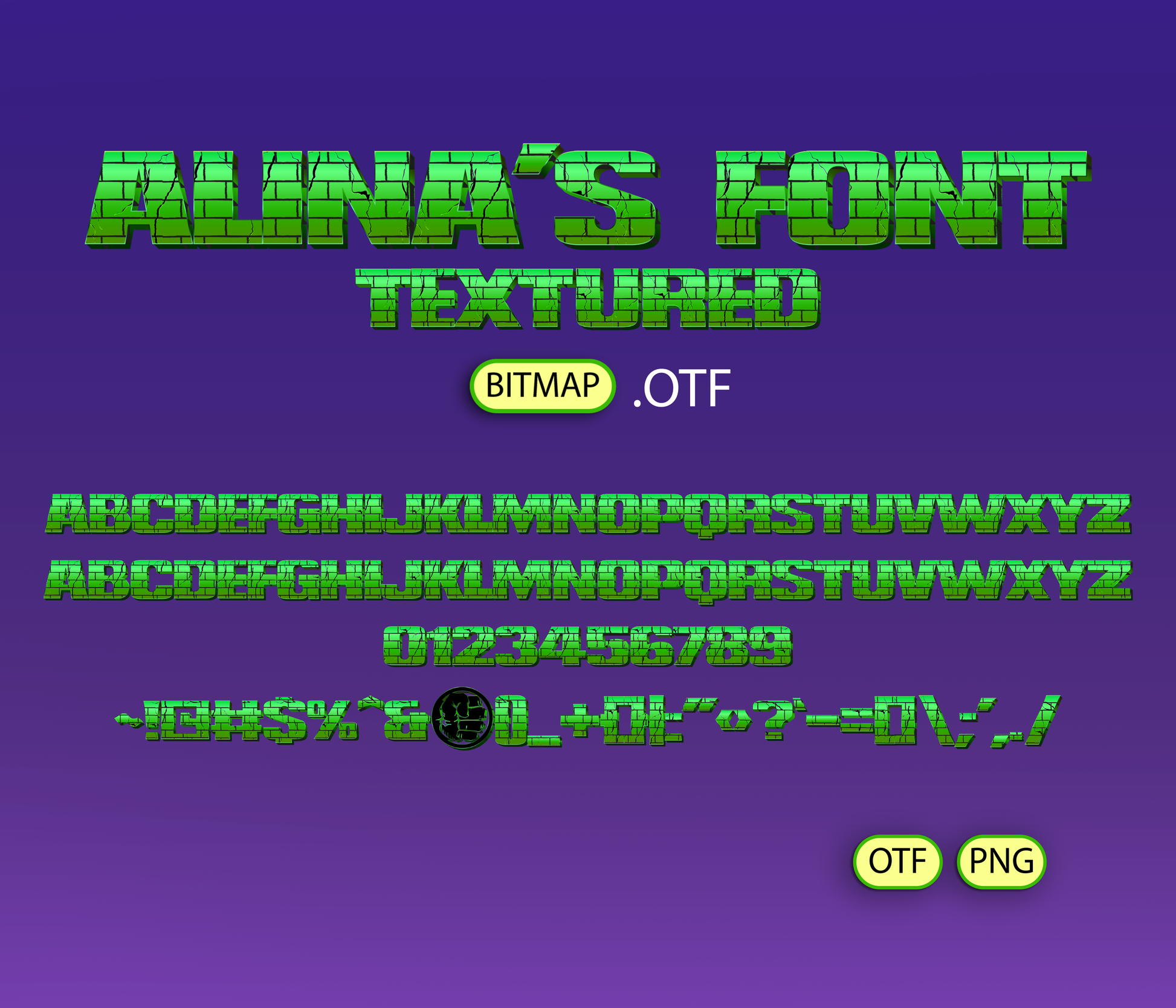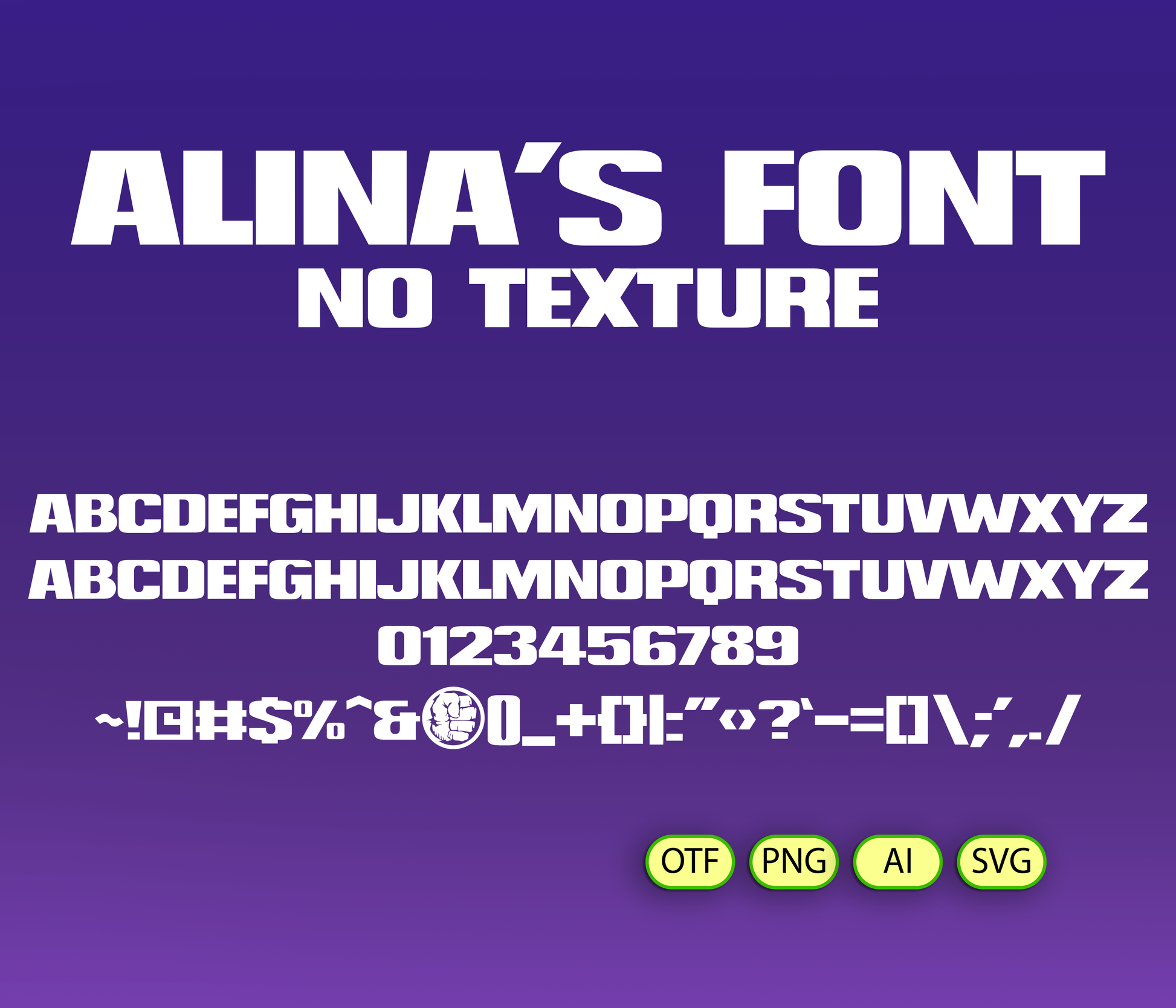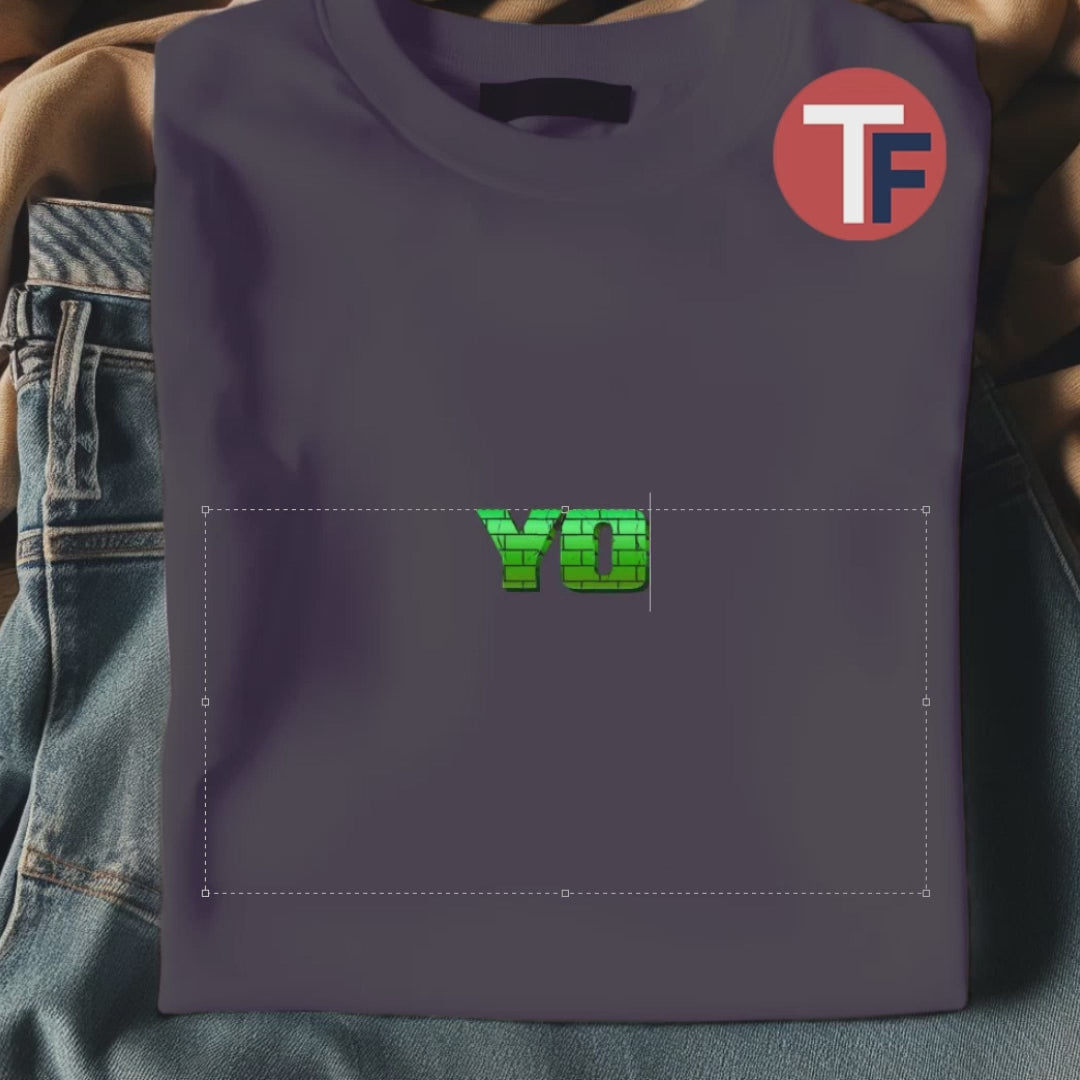
Indestructible Force Font Textured
Smash Through with the Indestructible Force-Inspired Font
Unleash the raw power and unstoppable force with our Indestructible Force-inspired font. Perfect for fans, event organizers, and designers looking to capture the mighty essence of legendary strength, this font brings a dynamic and impactful style to your projects. Whether you're creating event invitations, designing themed merchandise, or crafting digital content, our Indestructible Force font ensures your creations resonate with the destructive power and fierce energy of an unstoppable giant.
Our Indestructible Force-inspired font features bold, rugged lines and fragmented, shattered characters that reflect incredible strength and the chaos left in its wake. This versatile font is ideal for a variety of applications:
- Event Invitations: Perfect for striking invites for superhero parties, movie nights, or comic conventions.
- Merchandise Design: Ideal for designing t-shirts, posters, and accessories that capture the essence of immense power.
- Digital Media: Enhance websites, blogs, and social media content with powerful headers and graphics.
- Educational Materials: Use in presentations, worksheets, and educational content focused on superheroes, science, or storytelling.
- Personal Projects: Add a touch of smashing strength to scrapbooking, DIY crafts, or home decor inspired by heroic adventures.
Our Indestructible Force font not only pays tribute to a legendary character but also empowers you to infuse your designs with incredible strength and dynamic spirit. Whether crafting promotional materials, unique merchandise, or personal projects, this font allows you to communicate with the power and intensity that define a hero. Ready to bring a smashing impact to your creative projects? This font is your key to unlocking a world of powerful and impactful design.